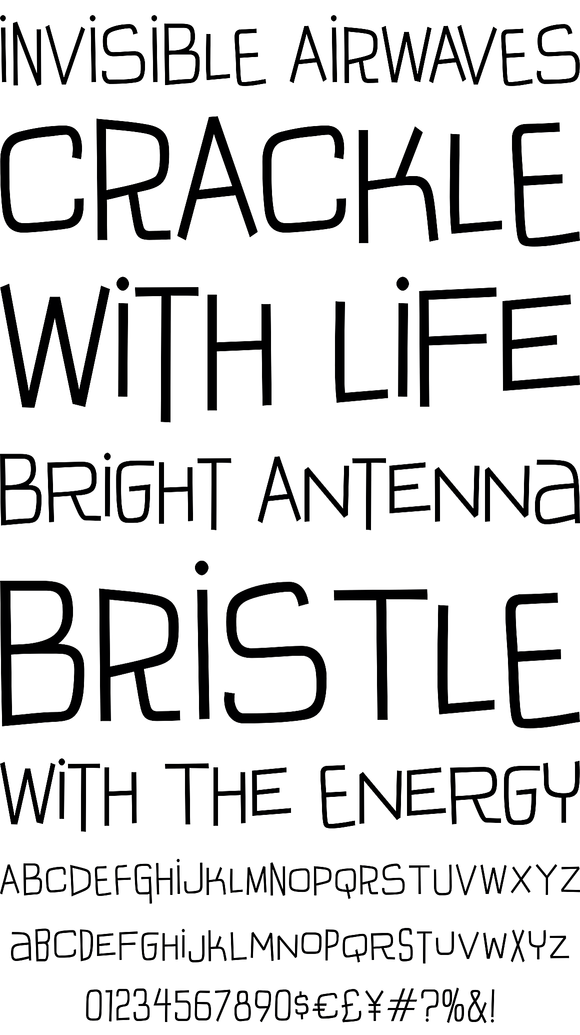
Iguana Lover was inspired by the lettering on the movie posters for Night of the Iguana, and have gone further to not only be inspired, but to go overboard and create a narrow, regular, and wide style of the lettering. An offbeat retro typestyle with playful appeal.